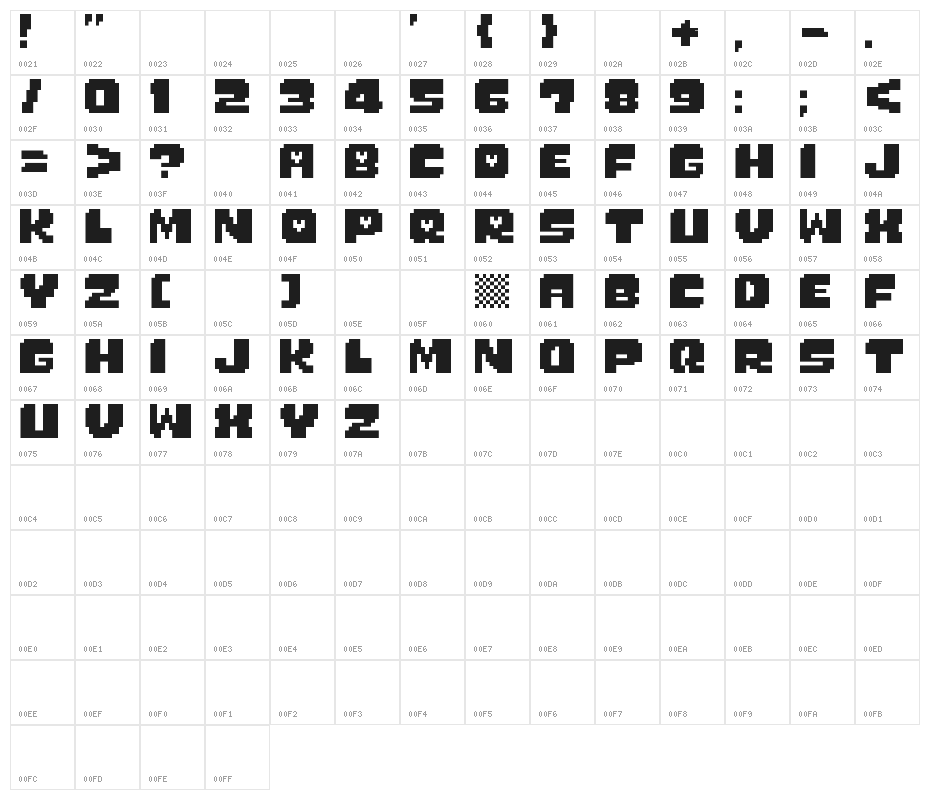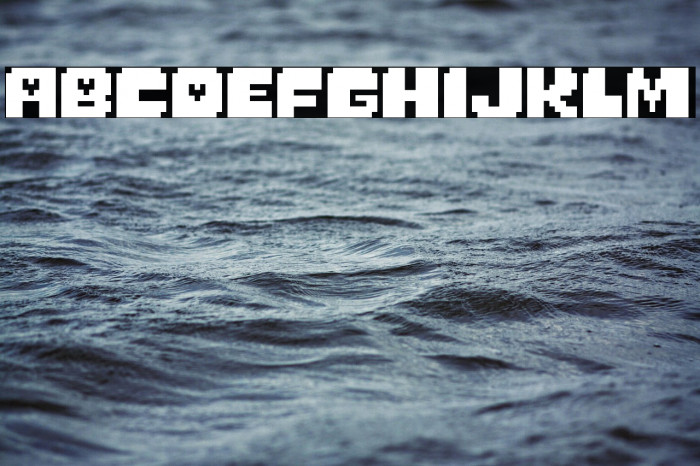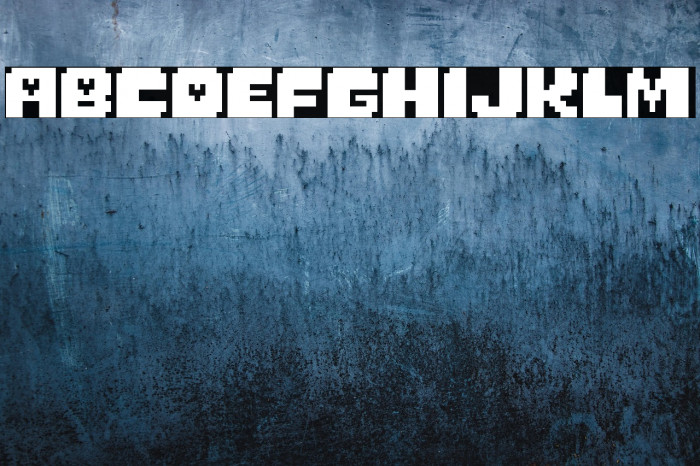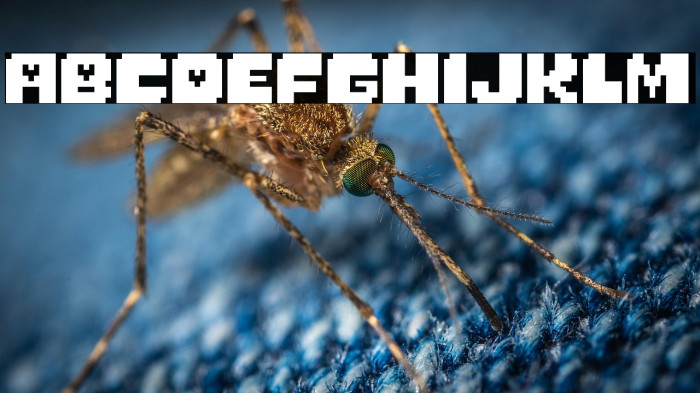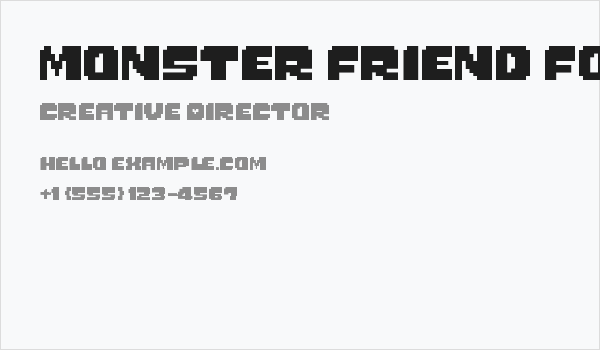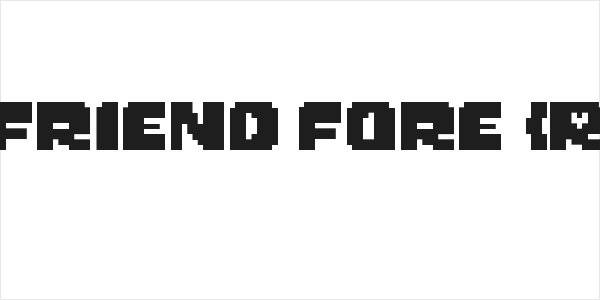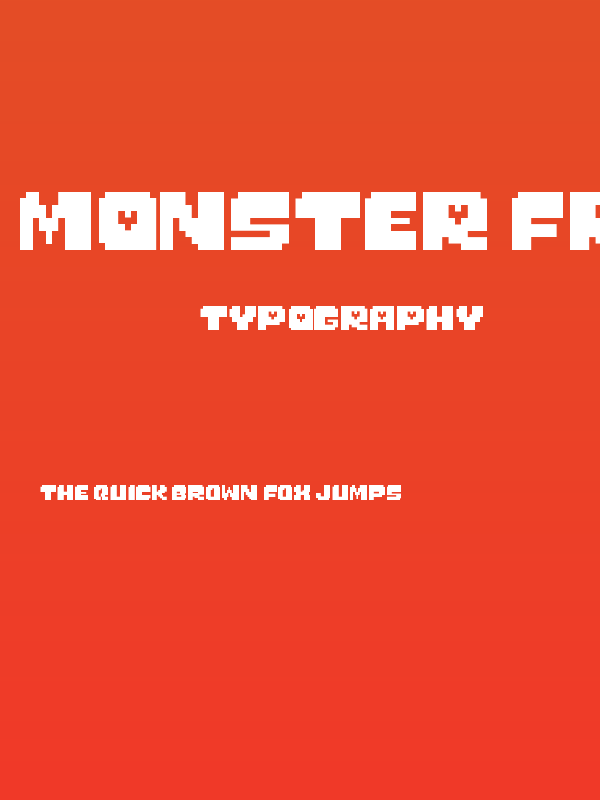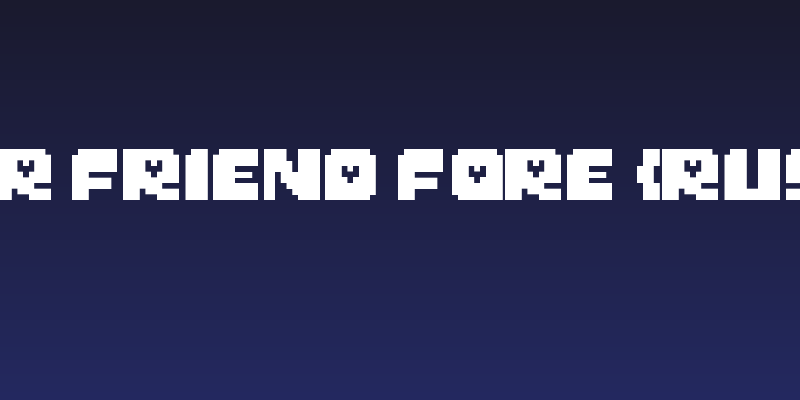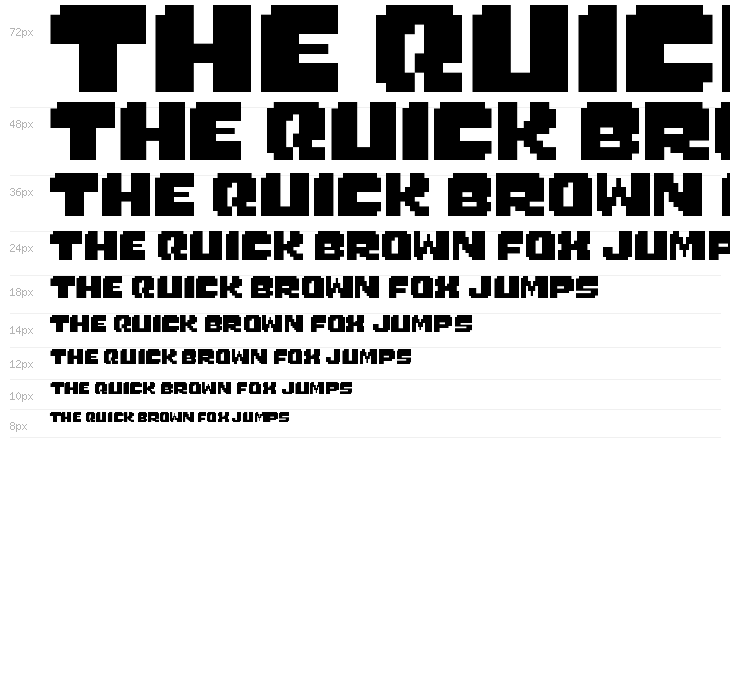
Monster Friend Fore (RUS BY LYA Font
Monster Friend Fore (RUS BY LYA Description
This font features a bold, blocky design with a pixelated aesthetic reminiscent of retro video games. The characters are uniformly wide, creating a strong, impactful presence. Each letter and number is constructed with sharp, angular edges, giving it a distinct, digital feel. The font maintains consistent height and width across all characters, ensuring a cohesive look. The special characters follow the same design principles, integrating seamlessly with the alphanumeric set. This style is ideal for projects that require a nostalgic or playful touch, capturing the essence of early digital typography.
| Overall Style | Retro, Digital |
| Proposed Projects | Ideal for video game designs, retro-themed posters, digital art projects, and playful branding. |